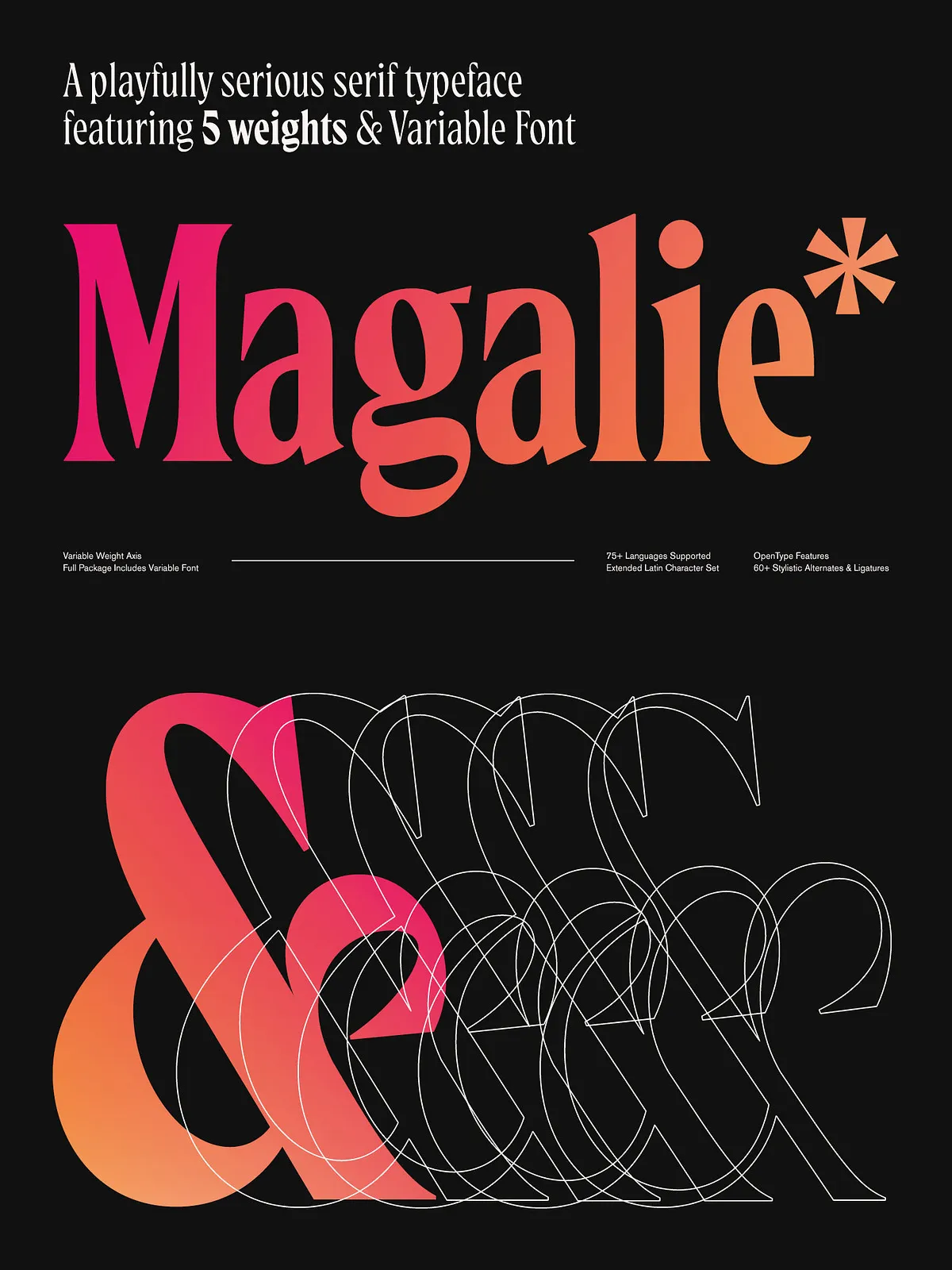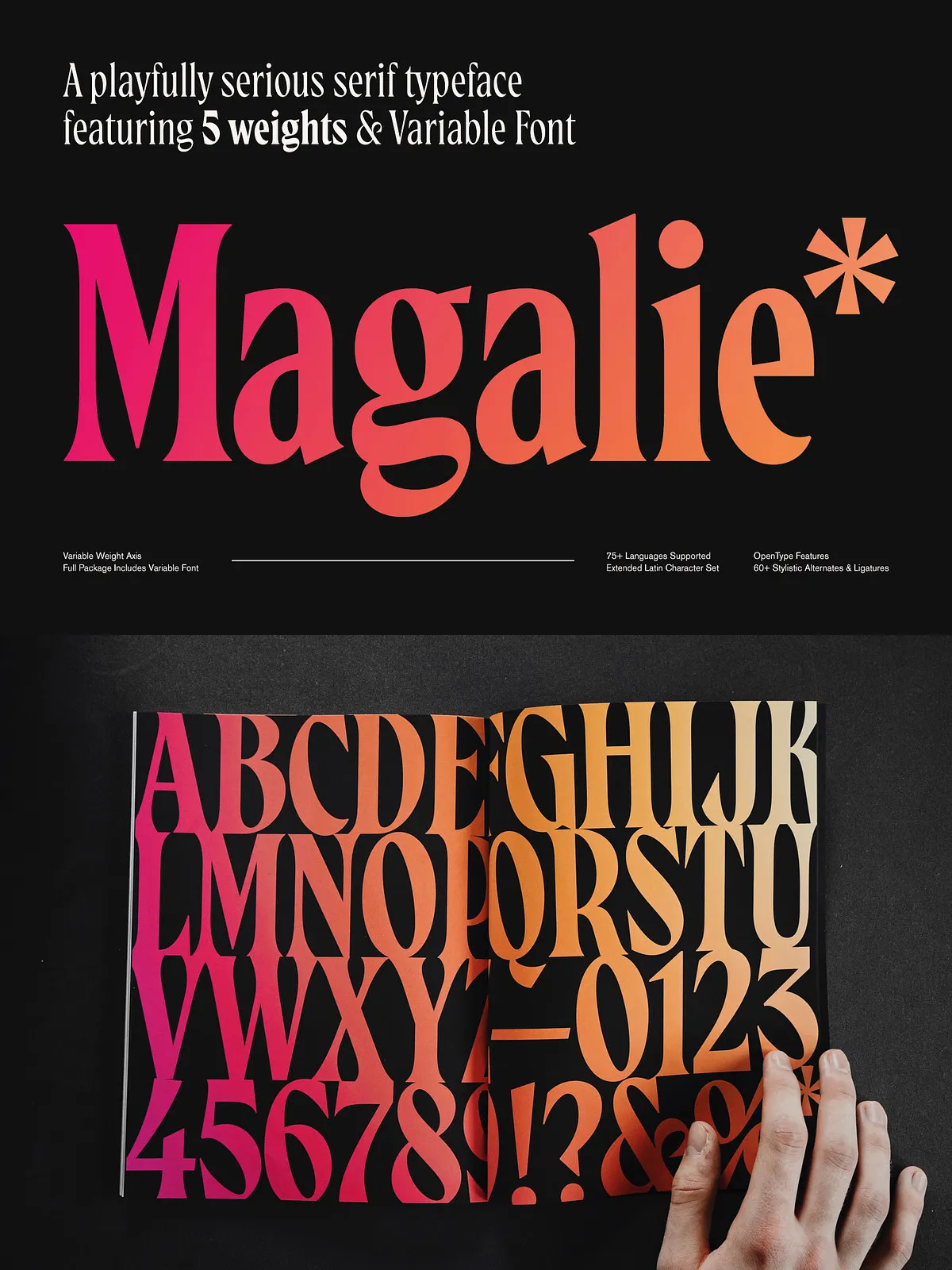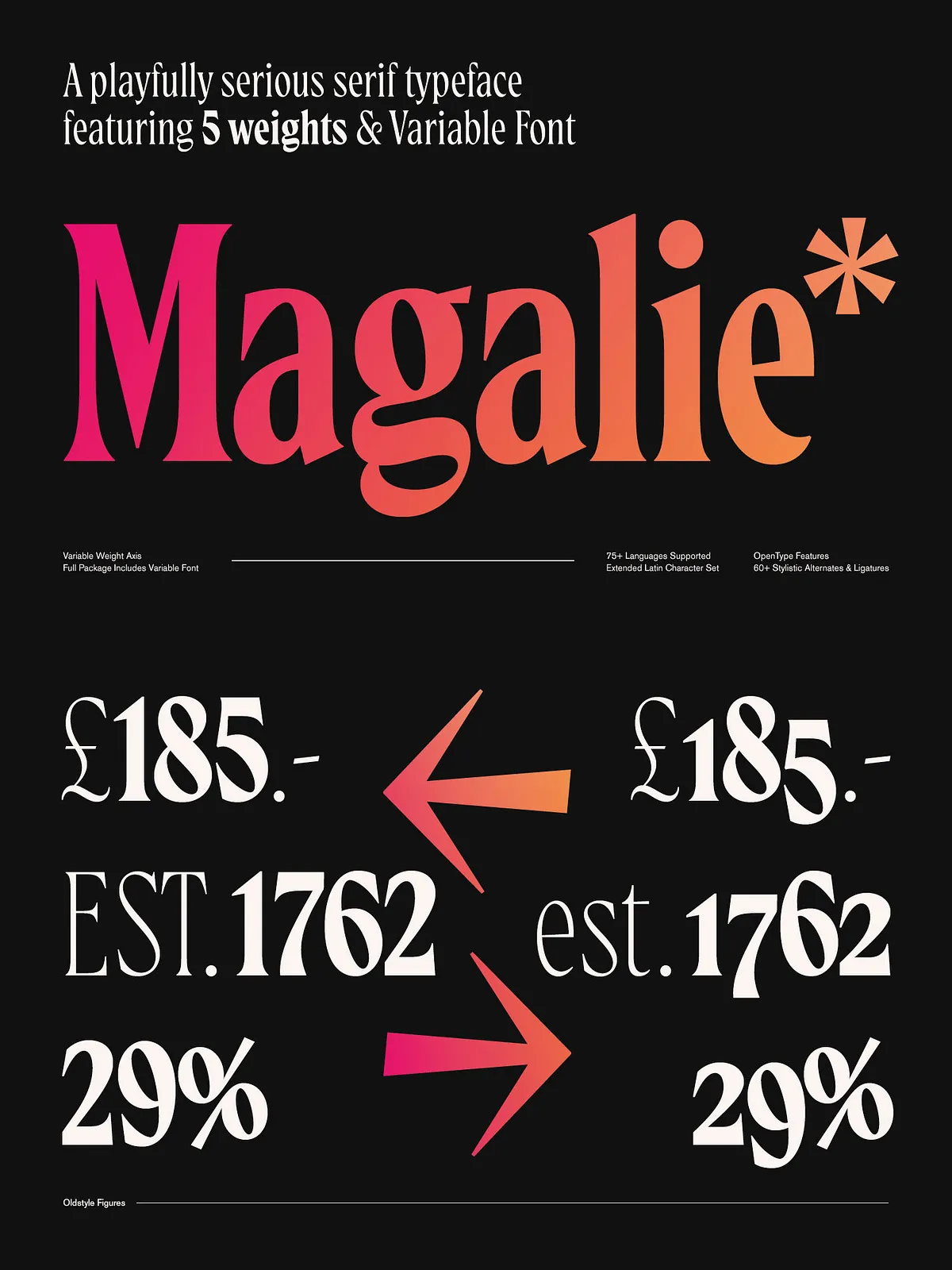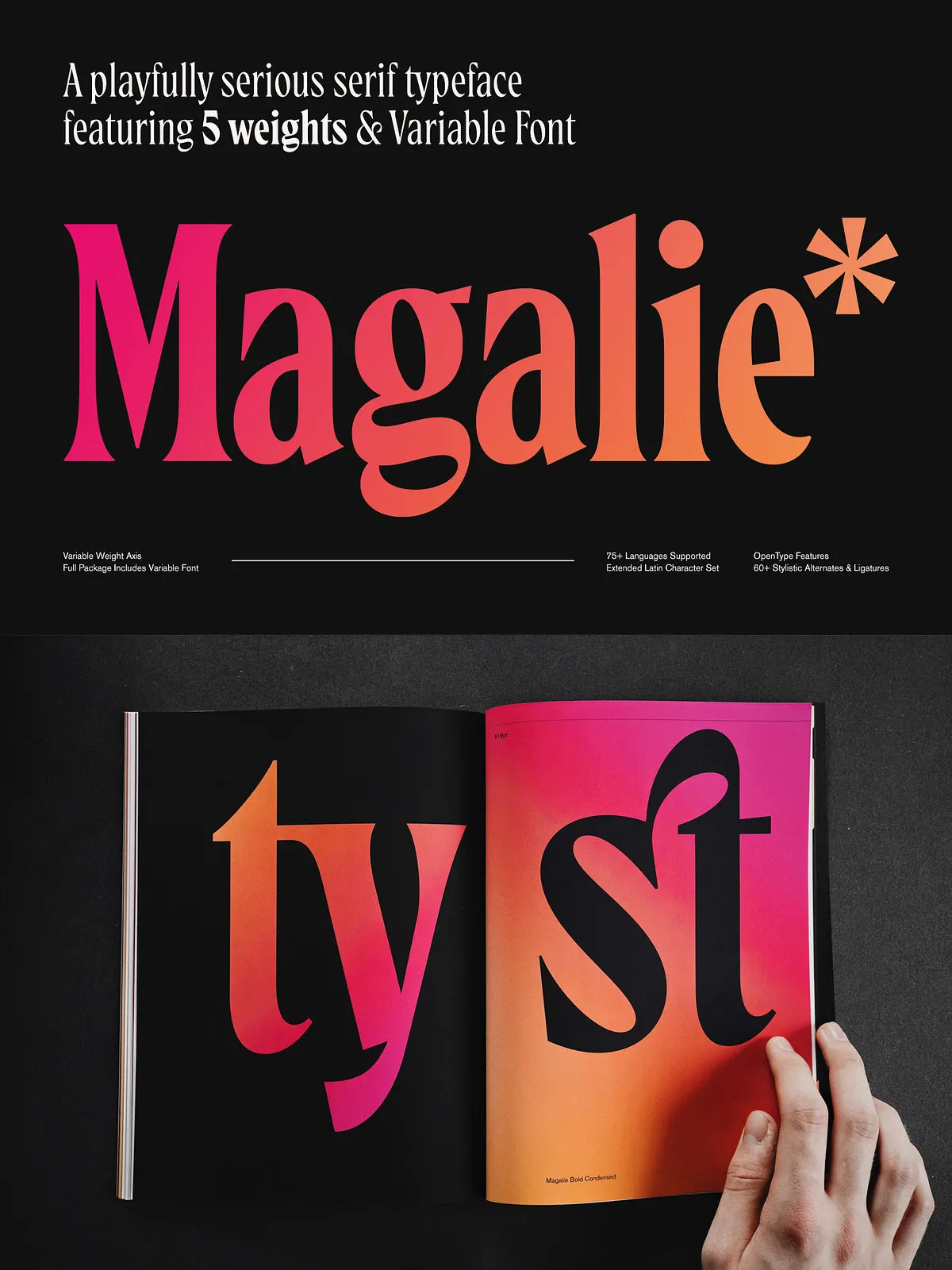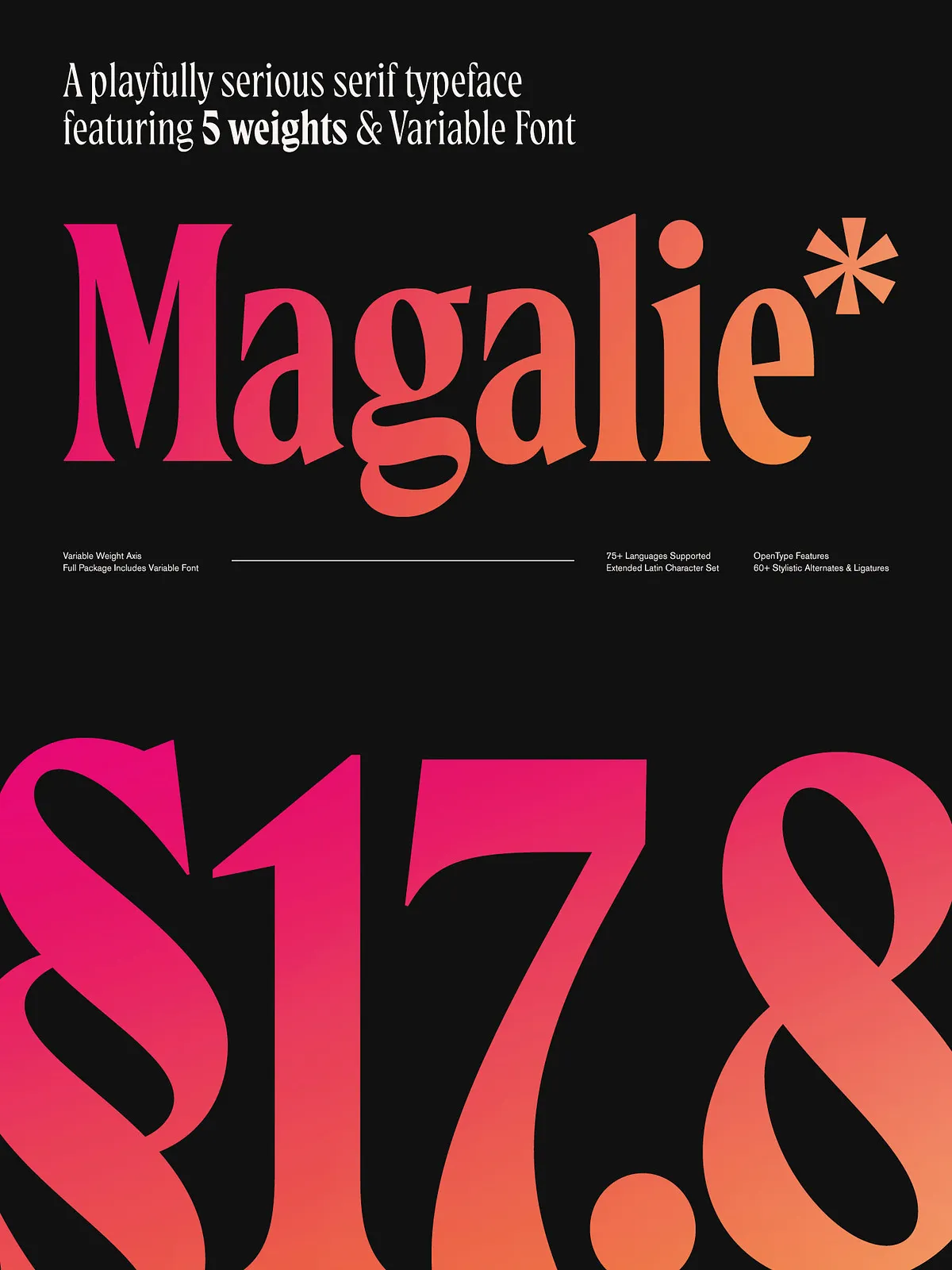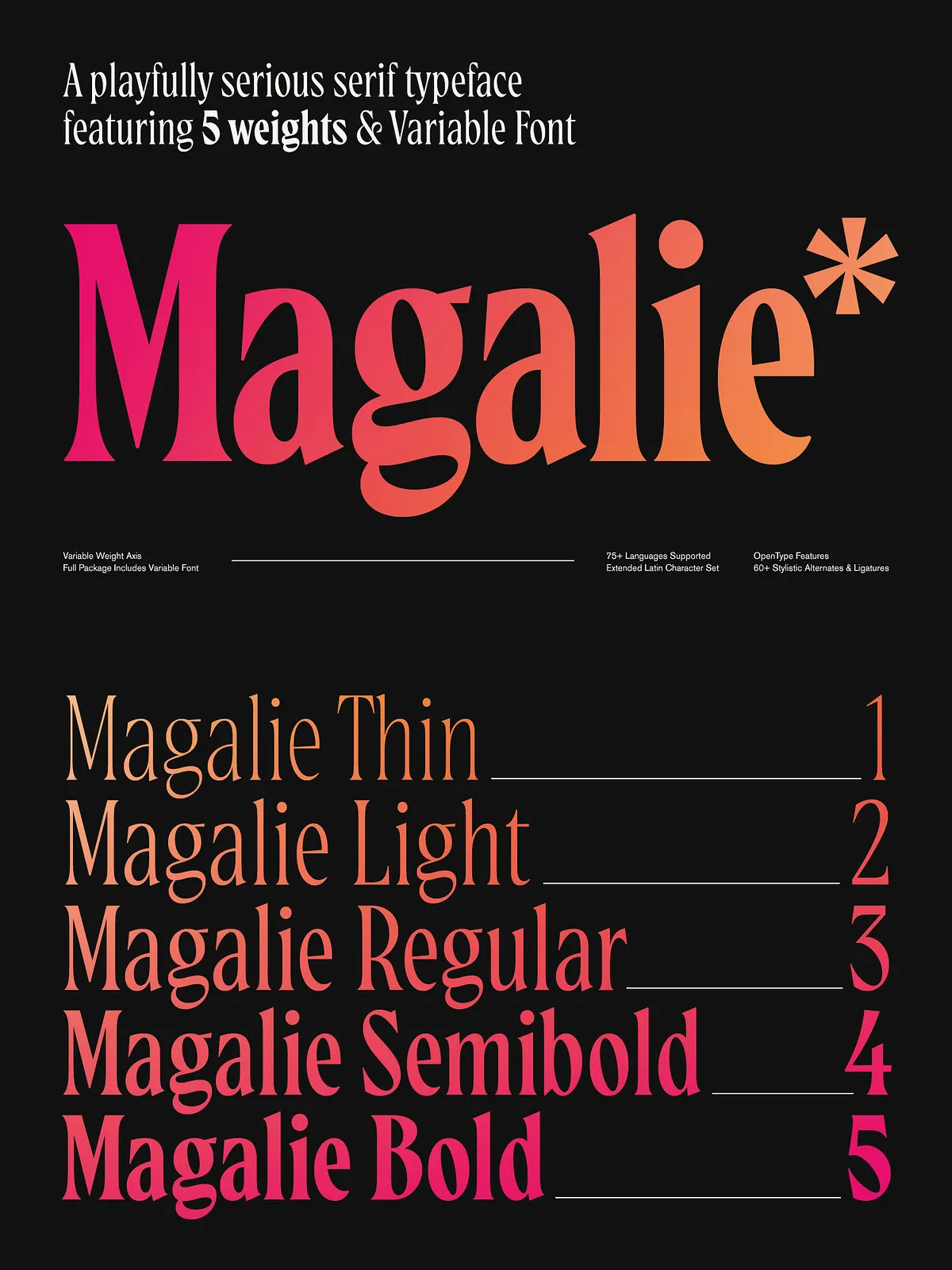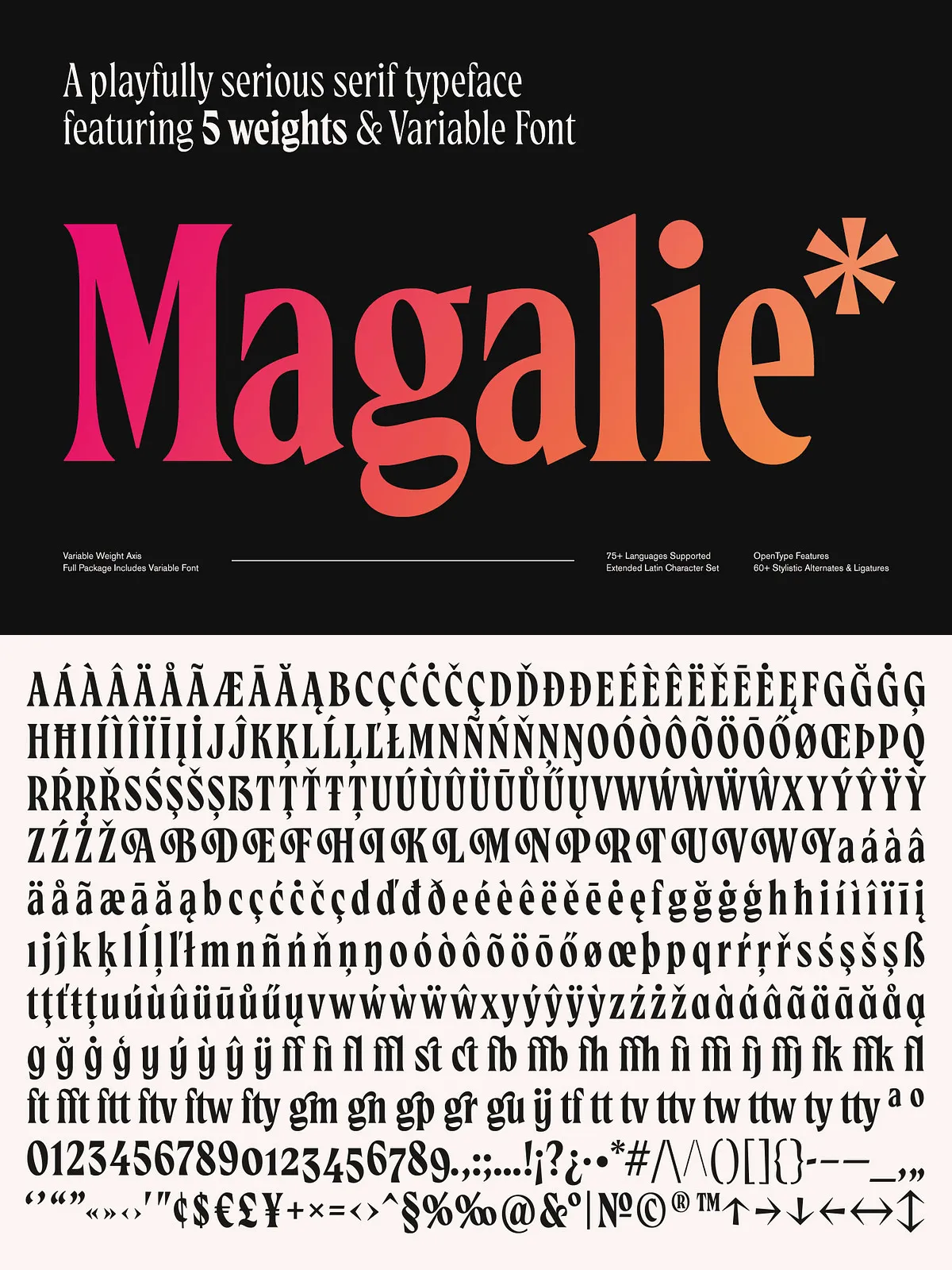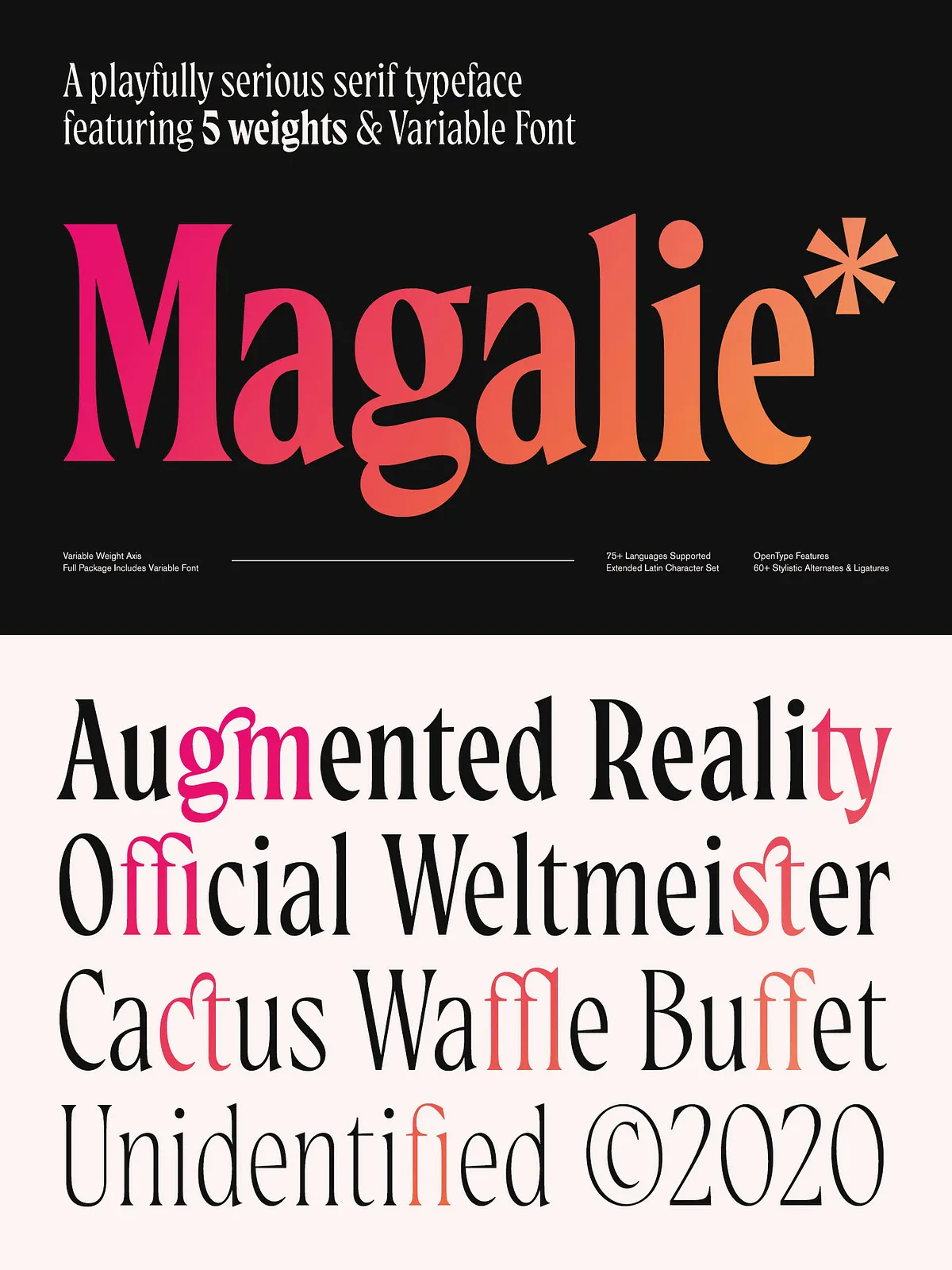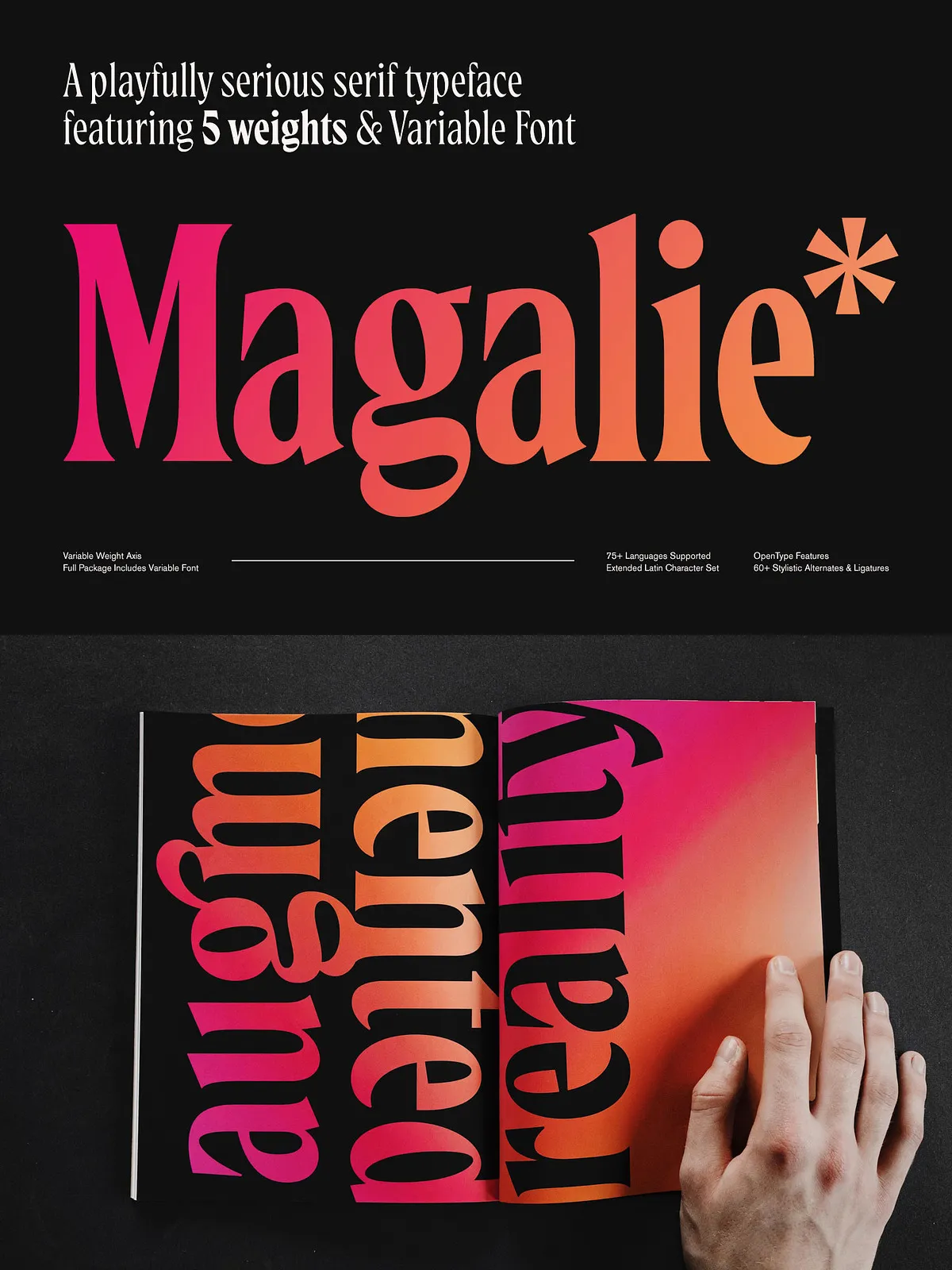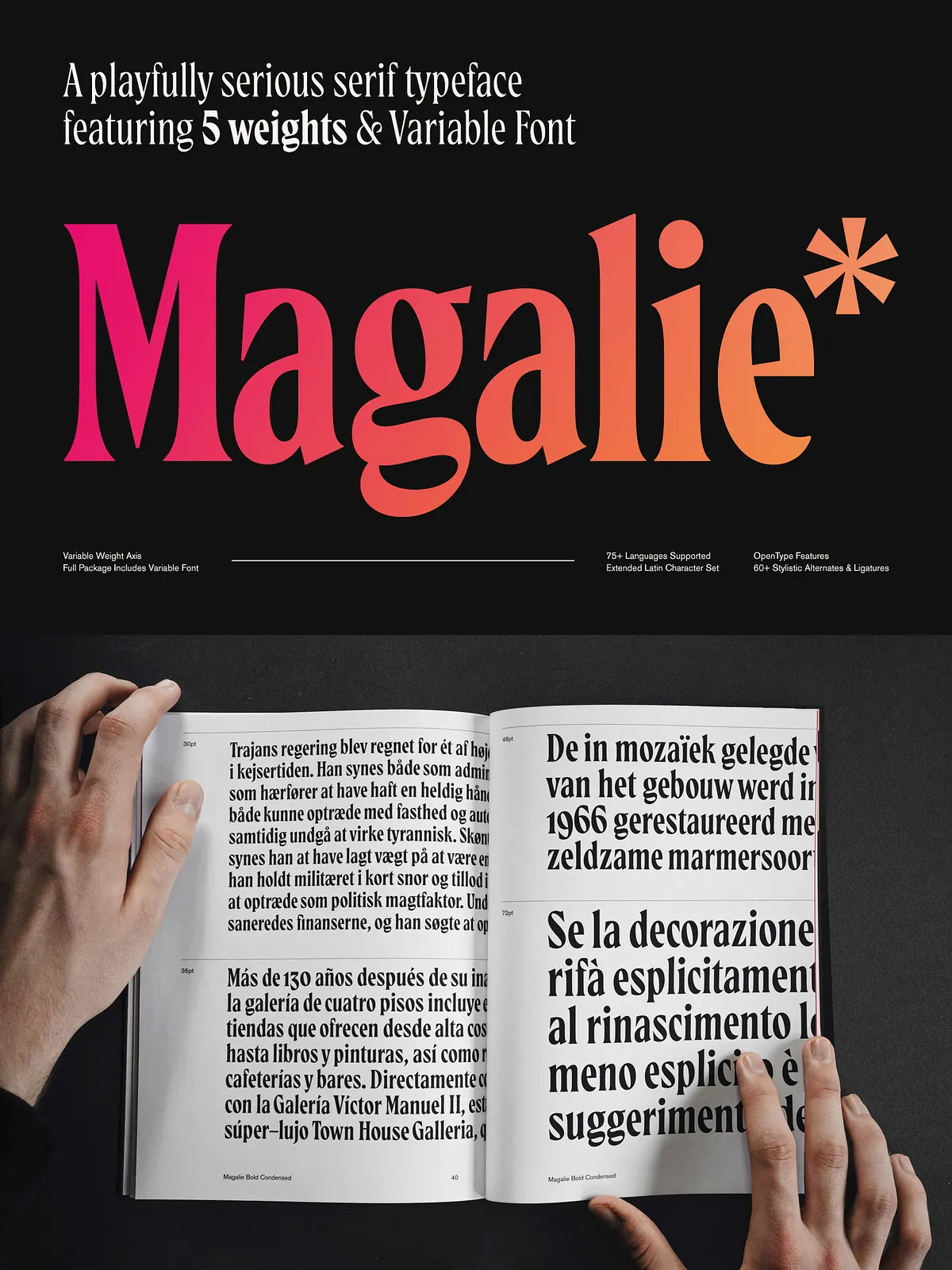
Magalie is a playfully serious, yet seriously playful serif typeface. Its fairly narrow width and sharp edges make it most effective when used at large sizes, for logotypes or headlines.
Typeface Features:
5 Font Weights — Thin, Light, Regular, Semibold & Bold (OTF + Variable Font)
Extended Latin Character Set (supports 75+ languages)
30+ Standard + Discretionary Ligatures
Selected Swash Capitals
Stylistic Alternates
Oldstyle Figures
Punctuation & Symbols